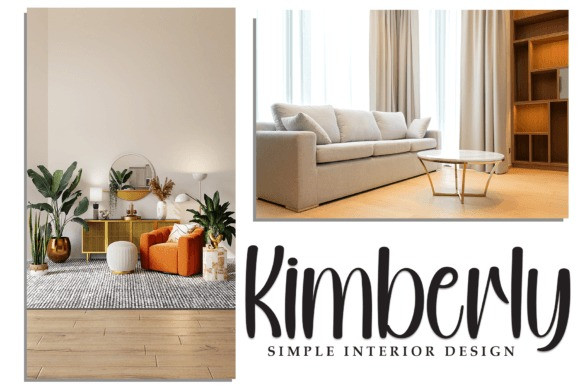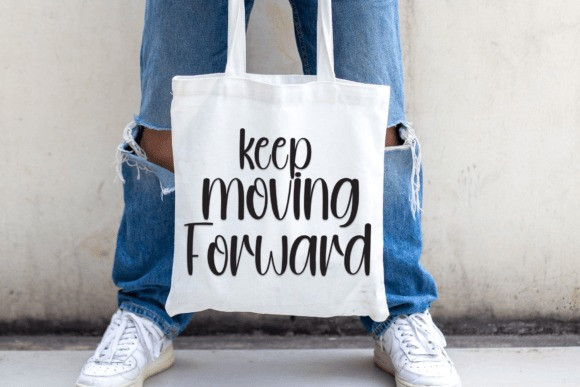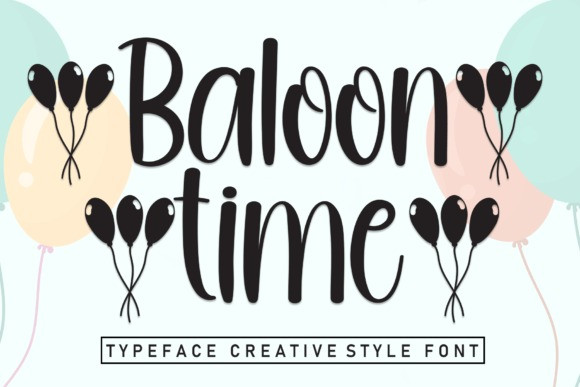
Baloon Time Font
Baloon Time Font is a sweet and friendly handwritten font. Fresh and casual, this font is ideal for writing wedding invitations, cards, or any other design that might need a lovely touch.